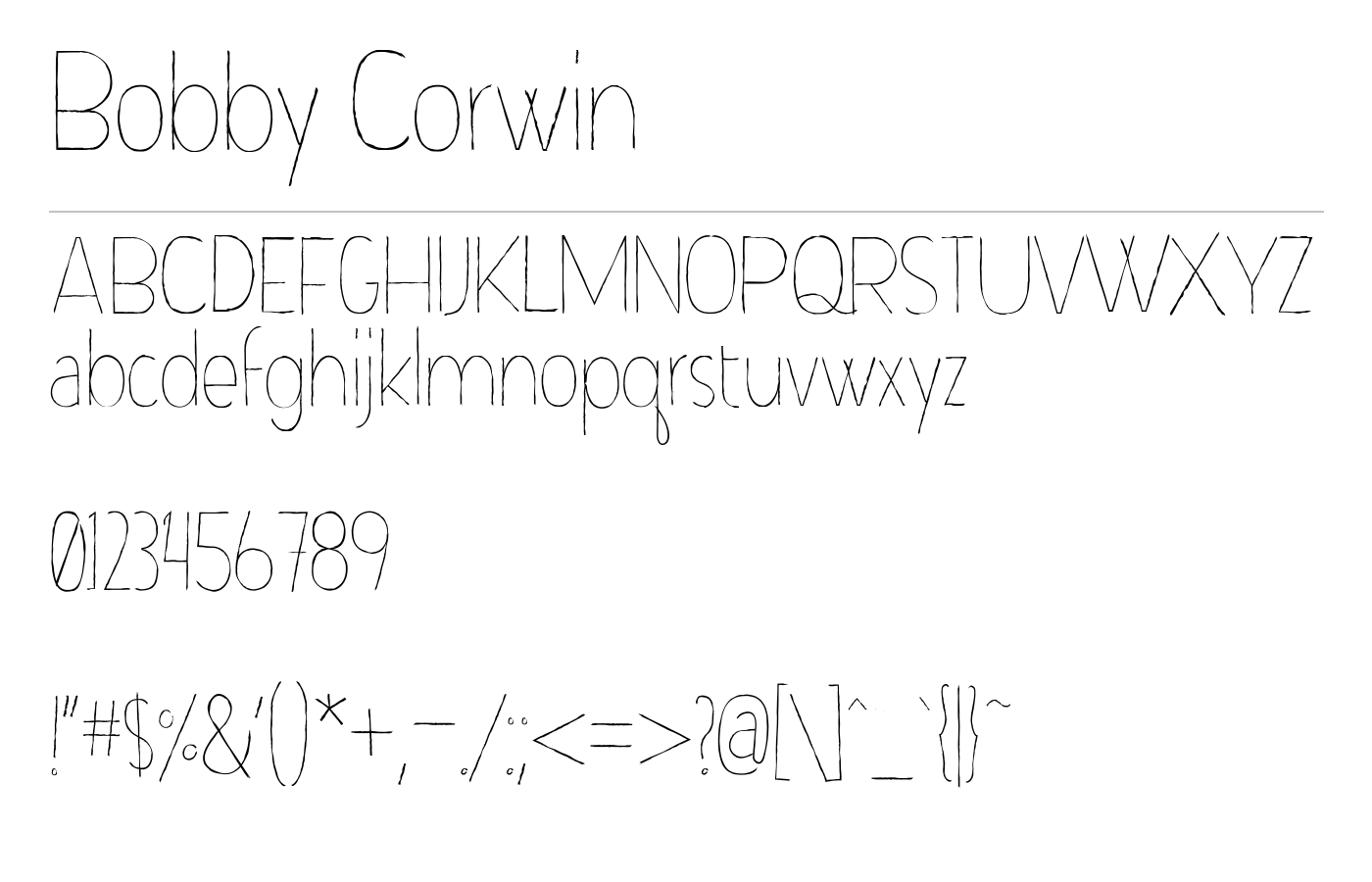
Bobby Corwin is a delicate, handwritten sans serif font with a tall, narrow structure and a light weight that gives it an airy, whimsical feel. Its thin, slightly irregular strokes and single-story letterforms create a casual, personal style perfect for informal, creative projects like invitations, artistic branding, or editorial accents. This font works best where a subtle, charming touch is needed rather than heavy text, lending a friendly and approachable character to designs.
Bobby Corwin Font
About Bobby Corwin Font